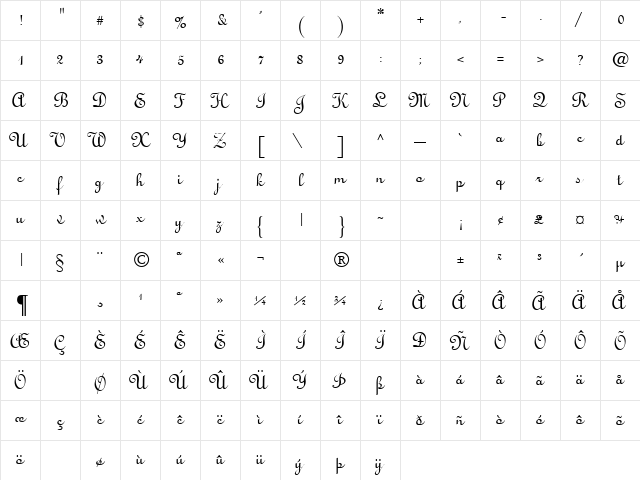
Visitation Rights 2 Regular
Design Context for Visitation Rights 2 Typeface
Visitation Rights 2 is a composed and adaptable typeface that performs quietly and consistently across a wide range of design contexts.